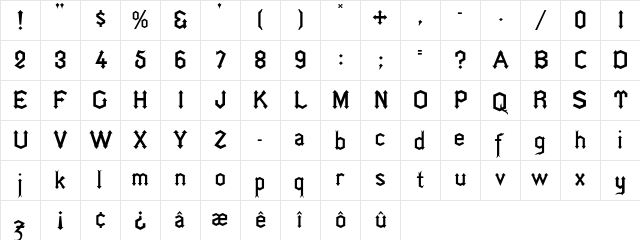
ArrowheadLake Regular
ArrowheadLake takes a measured approach to typography — its balanced proportions and neutral character make it a reliable workhorse for both digital and print work.